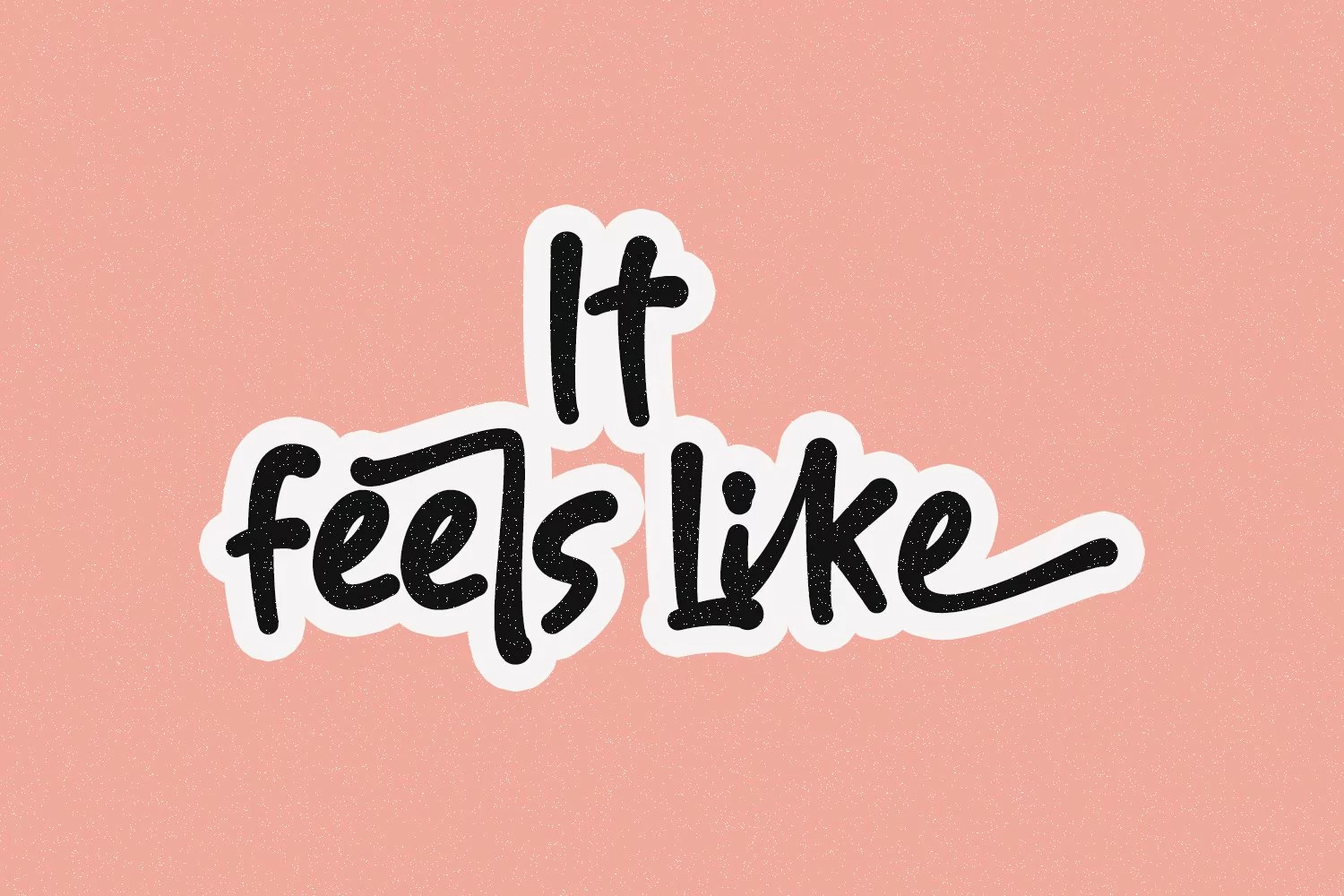
Crisle Wolff Cute Display Font
Give your designs an authentic brush handcrafted feel. "Crisle Wolff Cute Display Font" is perfectly suited to signature, stationery, logo, typography quotes, magazine or book cover, website header, flyer, clothing, branding, packaging design and more.
- Ligature
- Alternate